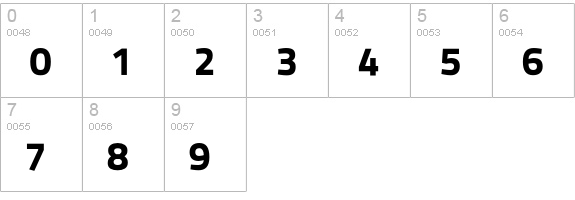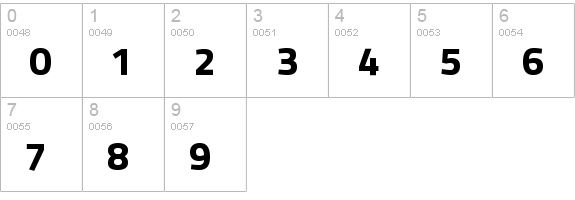
TitilliumText22L-XBold Font Details
TitilliumText22L-XBold is a striking and bold font that exudes confidence and modernity. With its clean lines and strong presence, this font is perfect for making a bold statement in your design projects. Whether you're creating a poster, logo, or website, TitilliumText22L-XBold will grab attention and leave a lasting impression. The best part? TitilliumText22L-XBold is available for free download at FontsMarket.com. This means you can easily access this versatile font and use it in your projects without any hassle. Don't miss out on the opportunity to enhance your designs with the impactful TitilliumText22L-XBold font, now just a few clicks away at FontsMarket.com.